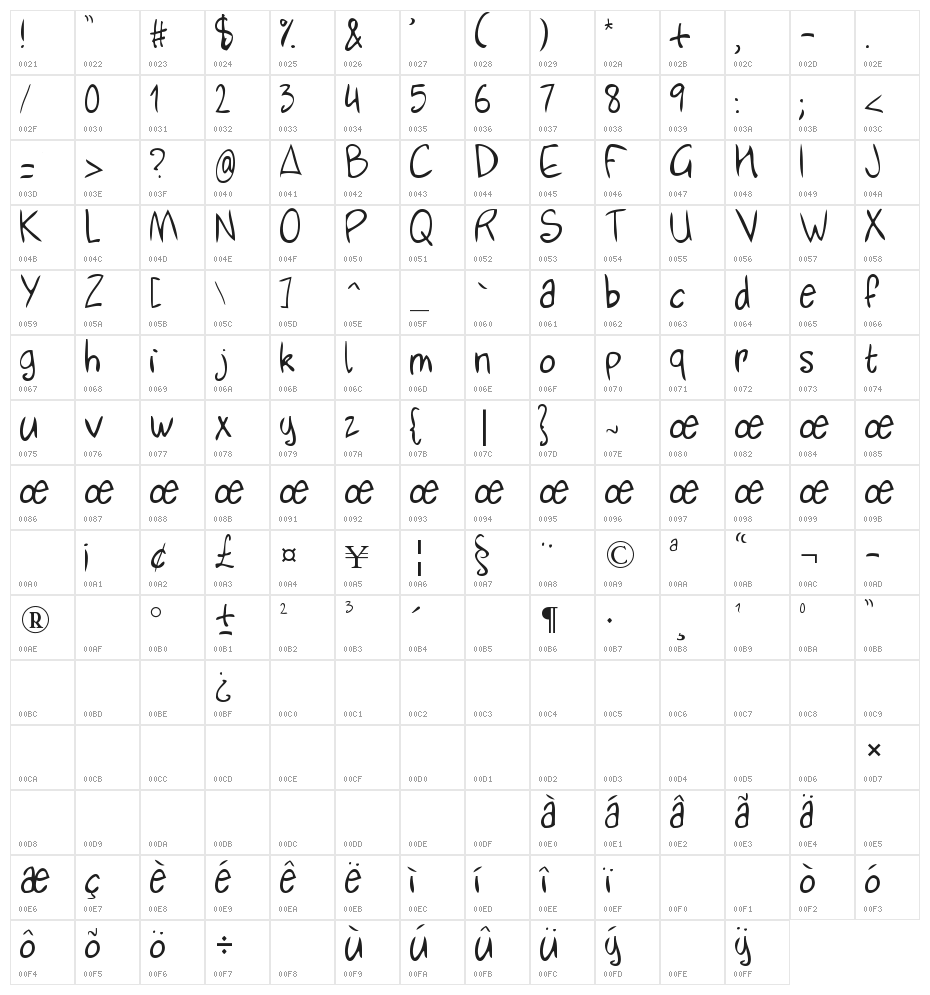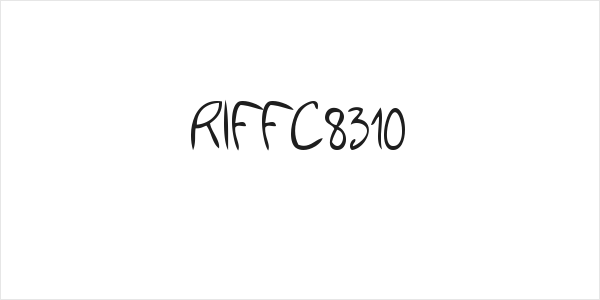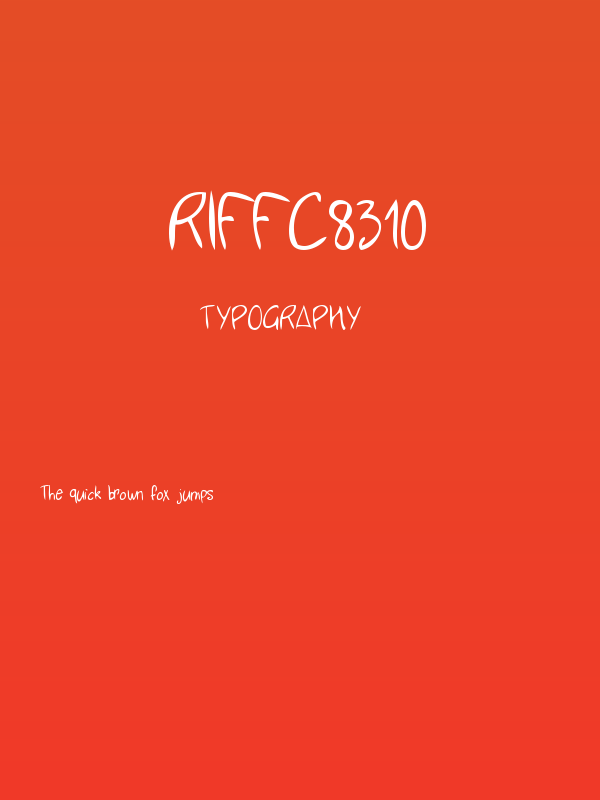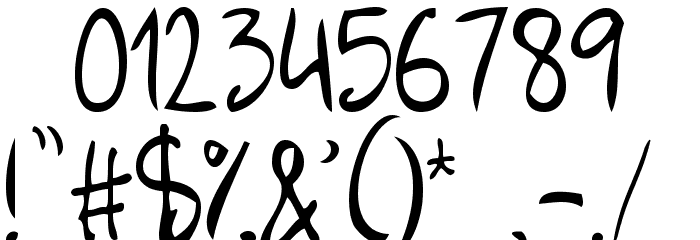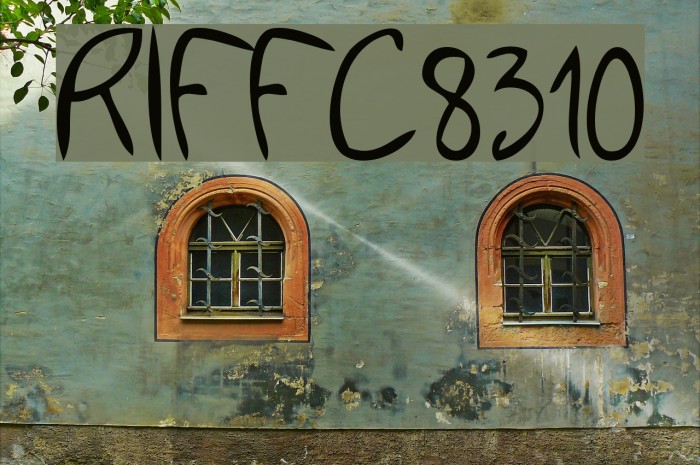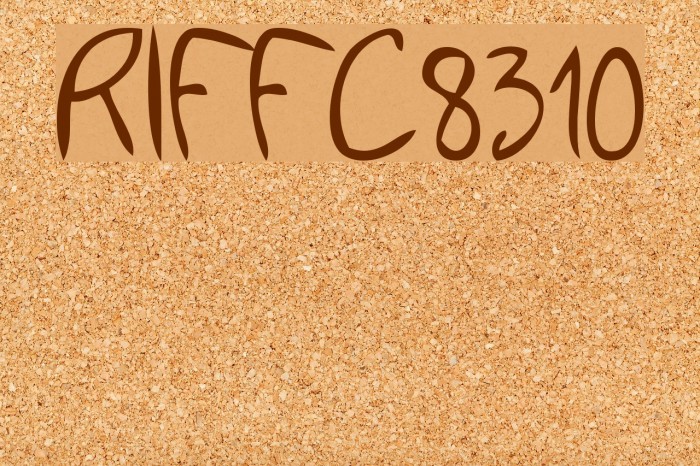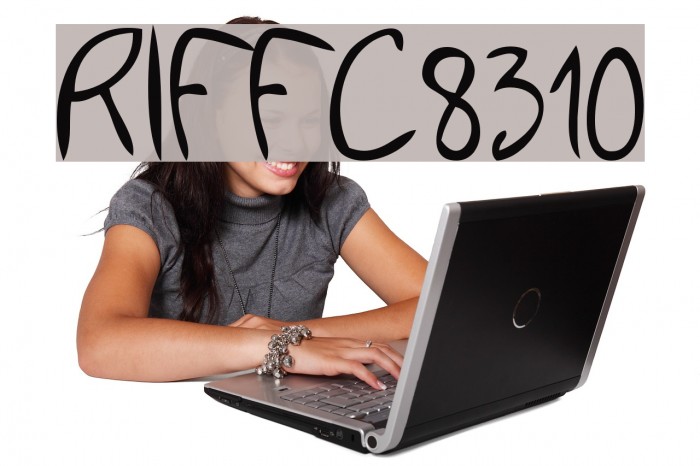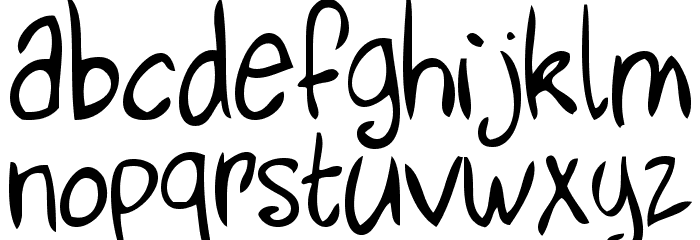
RIFFC8310 Font
RIFFC8310 Description
This font features a playful and dynamic handwritten style, characterized by its irregular strokes and casual appearance. The uppercase letters are tall and slightly narrow, with a whimsical flair that adds personality to each character. The lowercase letters maintain a consistent flow, with rounded edges and a friendly demeanor. Numbers and special characters follow the same lively style, making the font versatile for various creative applications. The overall look is informal yet stylish, perfect for projects that require a personal touch.
| Overall Style | Playful, Casual |
| Proposed Projects | Ideal for greeting cards, children's books, playful branding, and social media graphics. |